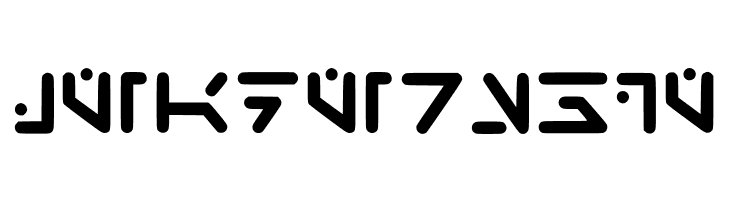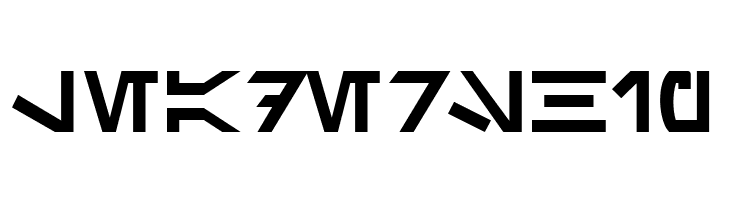
• Aurebesh Condensed
A geometric, angular font with a futuristic, sci-fi aesthetic.
• Aurebesh Condensed Bold
A bold, condensed, and angular font with a futuristic sci-fi aesthetic.
• Aurebesh Condensed Italic
A futuristic, angular font with a condensed and italicized style.
• Aurebesh Italic
A futuristic, angular italic font with a sci-fi aesthetic.
• Aurebesh Normal
A geometric, angular font representing a fictional alien language.
• Aurebesh_droid Regular
• Aurek-Besh Hand